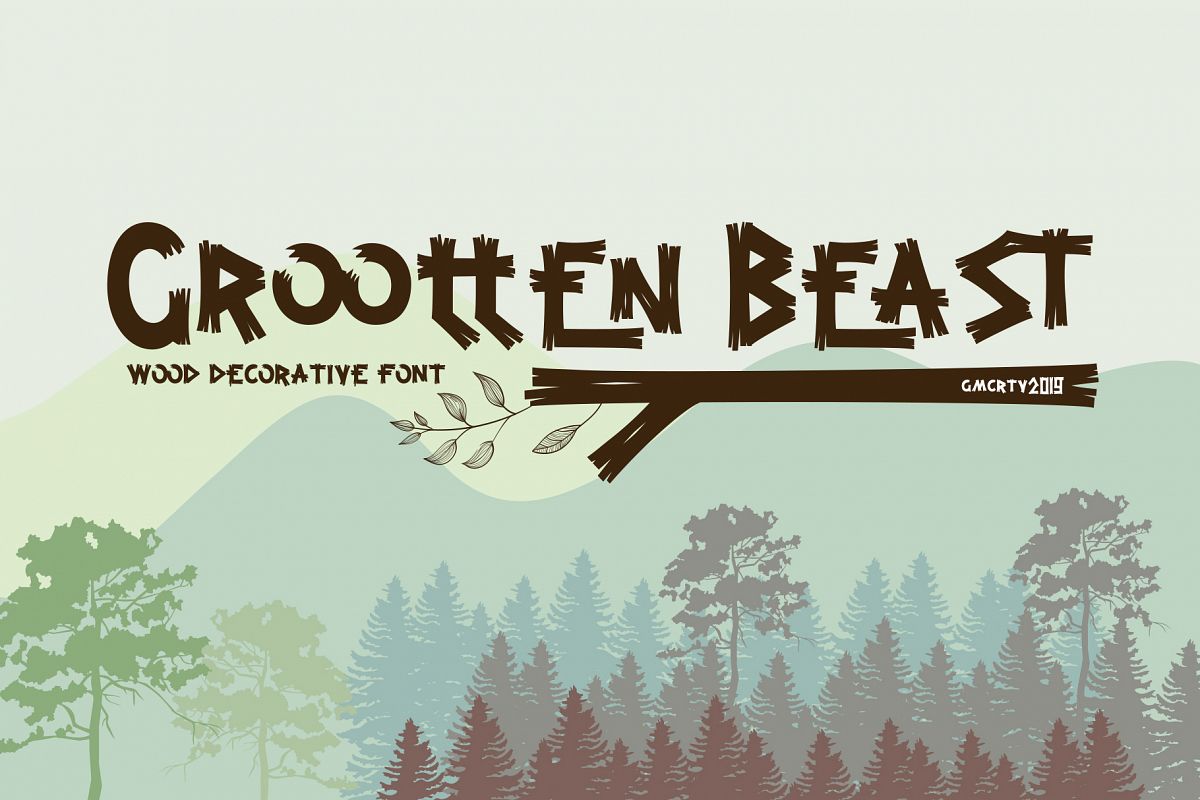
-- Fun / Original / Decorative -- Grootten Beast font is a decorative font family Inspired by kids book cover design, we try to make it more decorative so it's can useful for any purpose. it's perfect for you to show your design or product in professional way. USE Grootten Beast font is works great in any branding, logos, magazines, films, poster, flyer, sign board, magazine,etc INSIDE THE ZIPP - TTF file - OTF file Thanks for having a peek at Grootten Beast font. After all I'm very proud to finally release it, I hope you enjoy it and feel free to take it for a spin below! As always, if you have any questions just send me a message, or contact me. Cherrs!